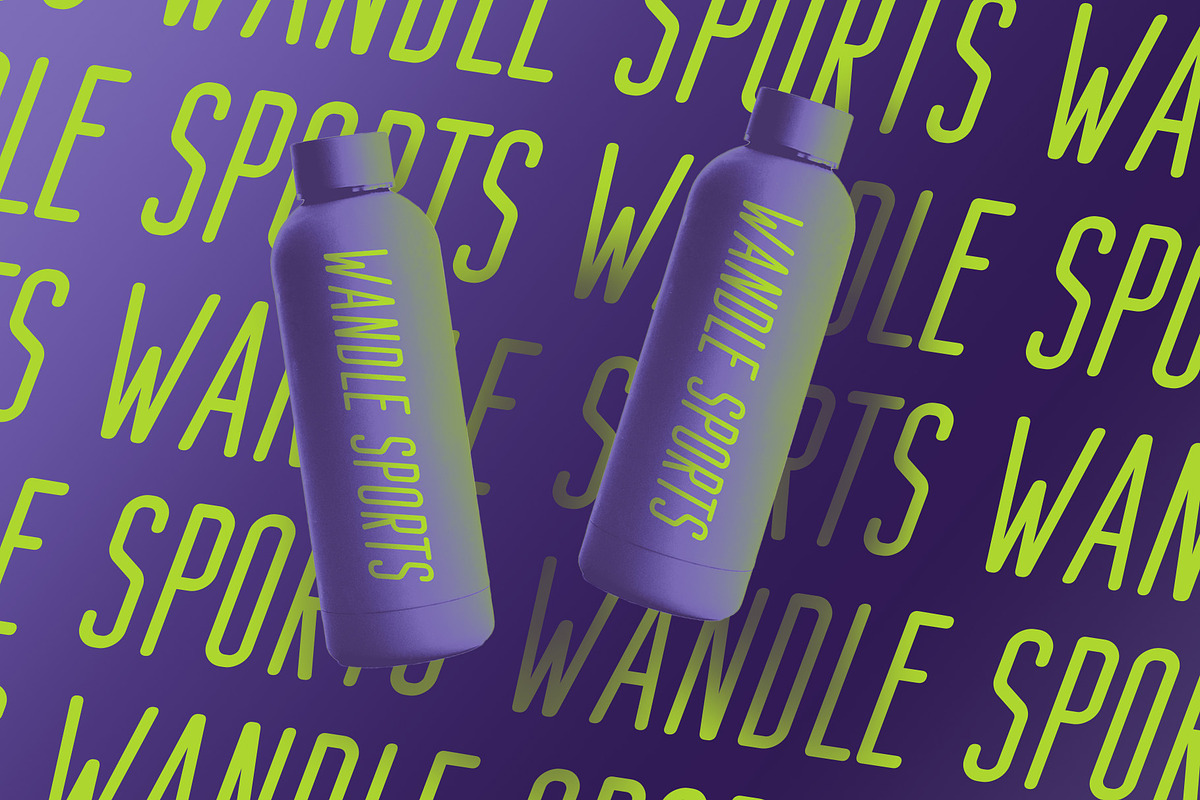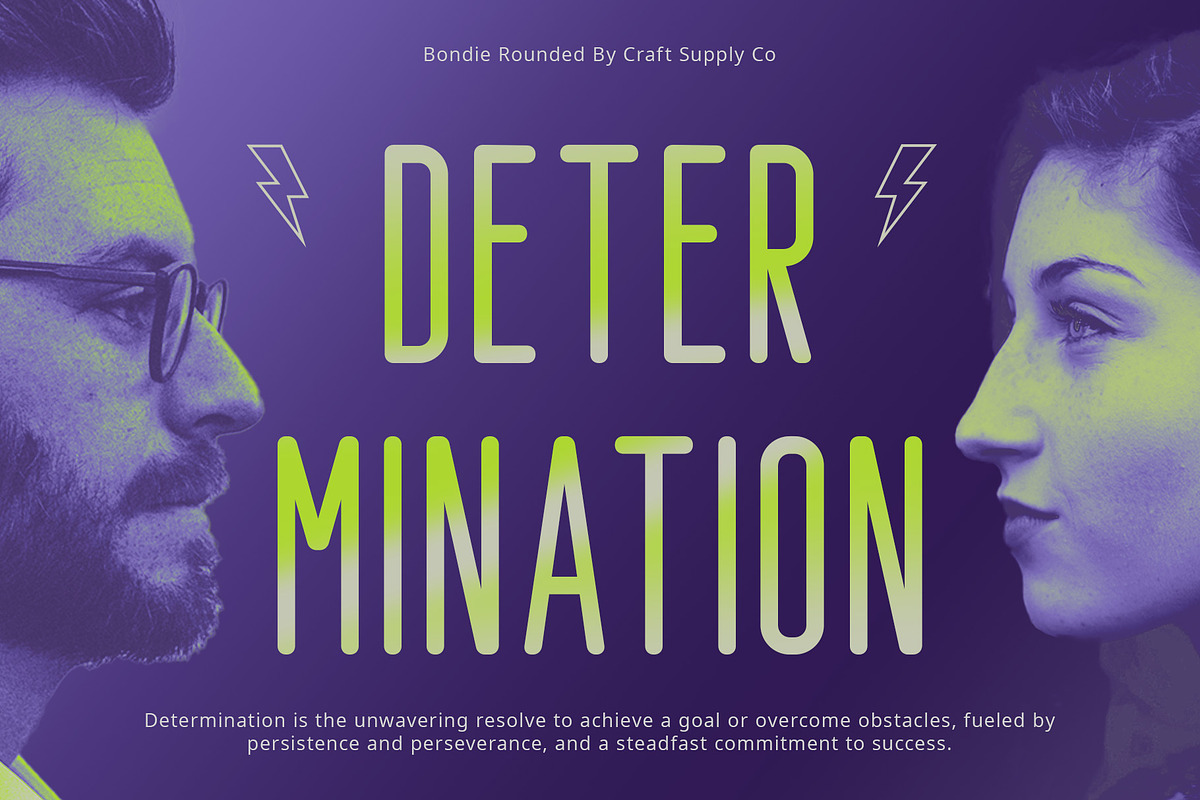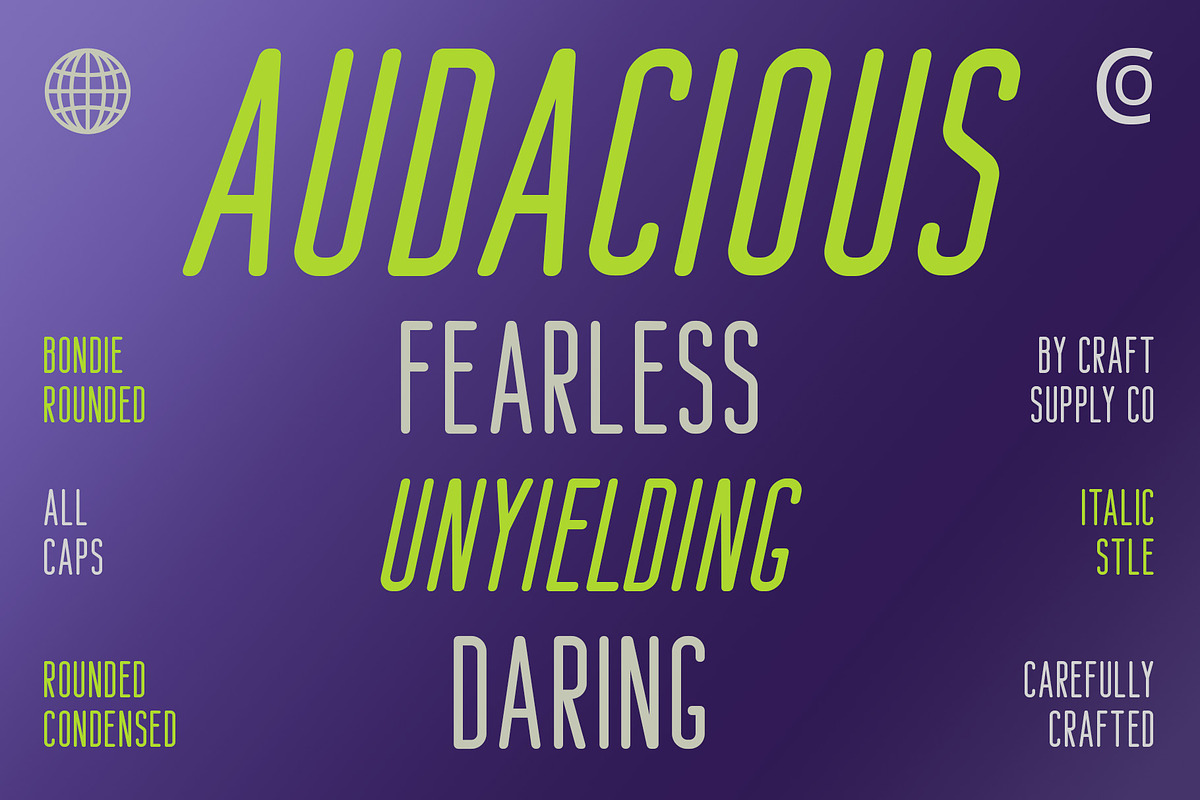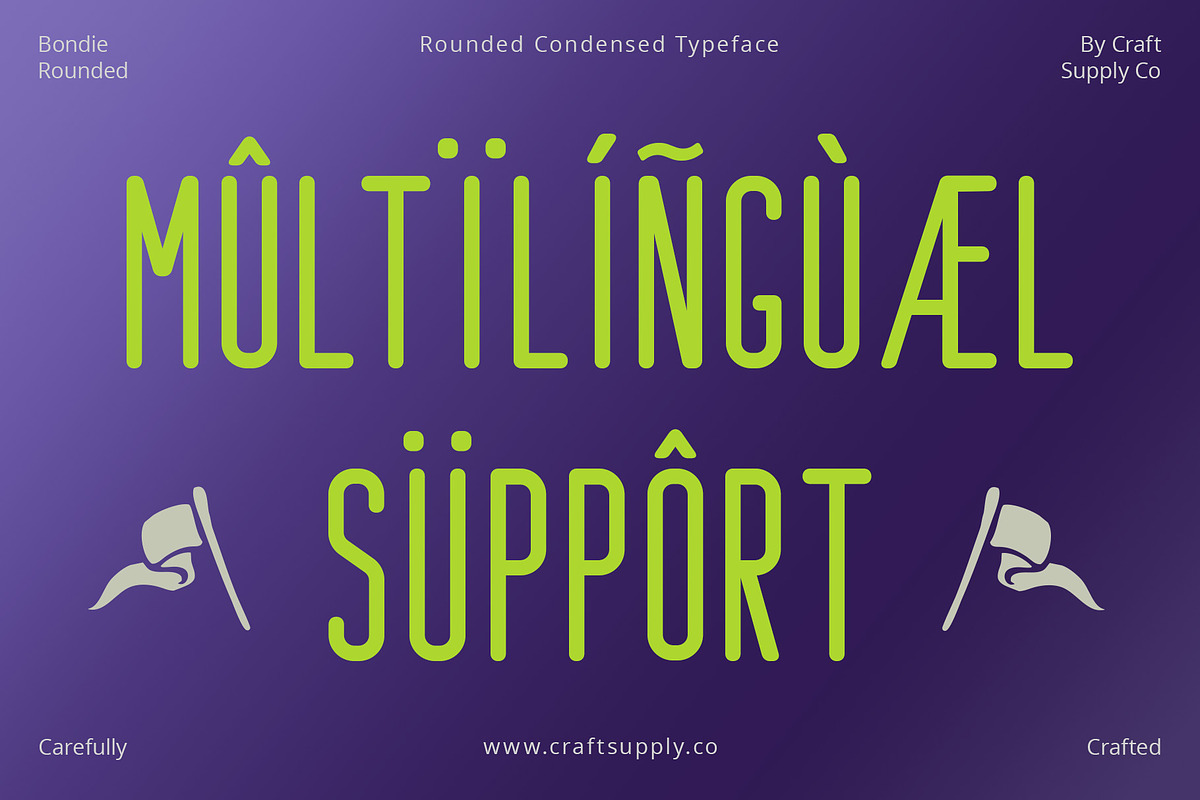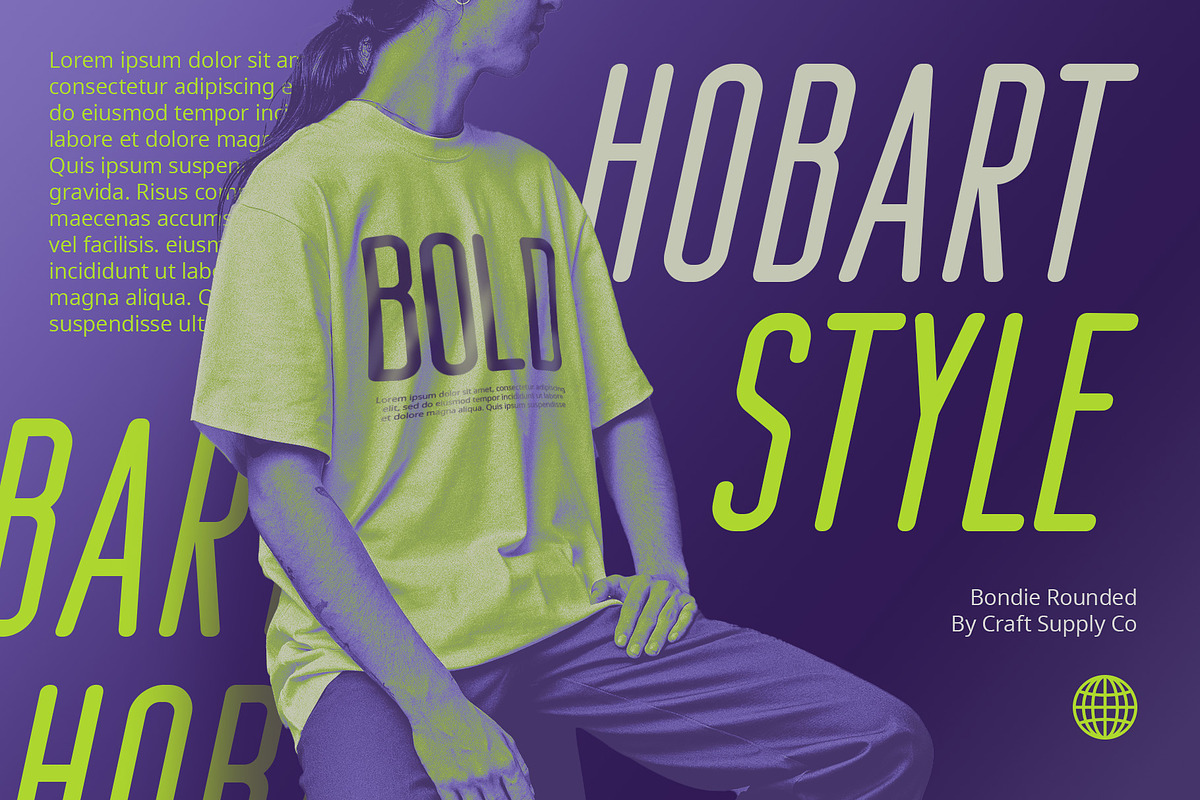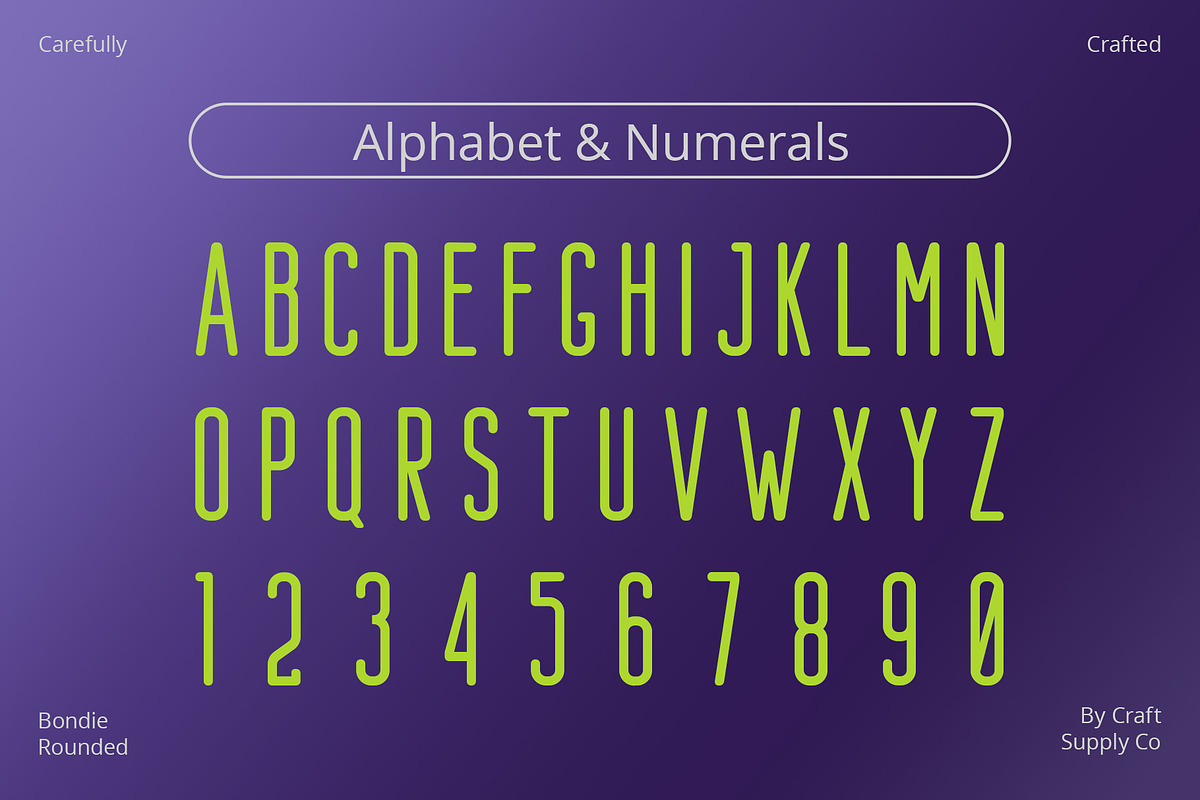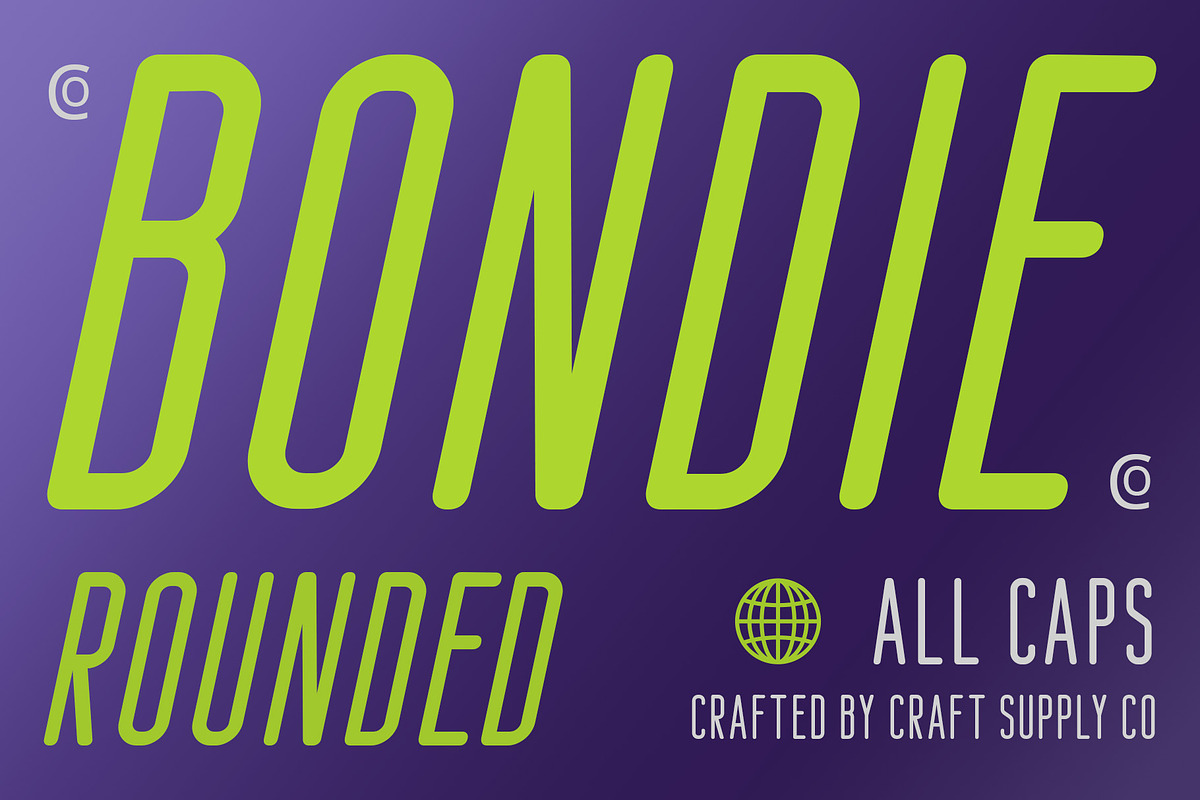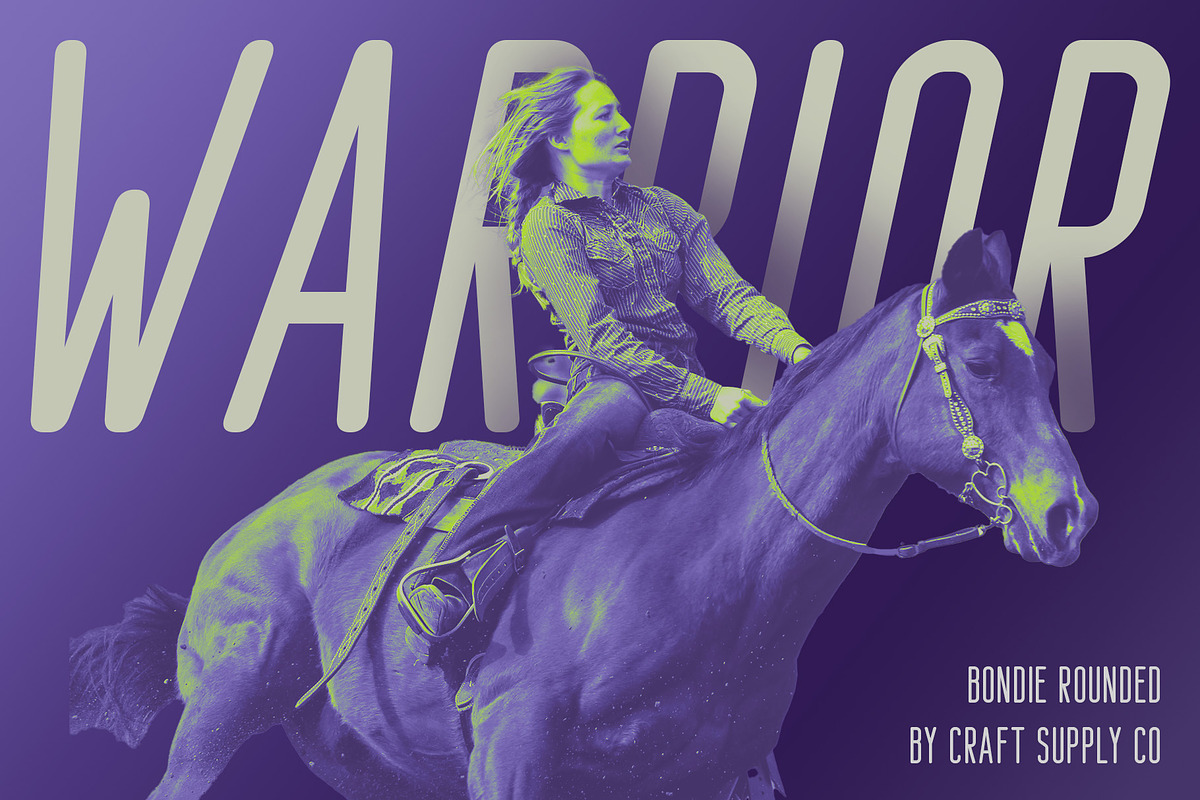
Bondie Rounded
Bondie Rounded: Modern Minimalism in Typeface
Rounded Sans Serif Design Bondie Rounded features a sleek sans serif design with rounded edges, adding a touch of softness to its appearance.
Condensed and Low Contrast The font boasts a condensed style with low contrast between its thick and thin strokes, resulting in a modern and compact aesthetic.
Contemporary Nuance With its rounded edges and condensed form, This font exudes a contemporary vibe that is perfect for a wide range of design projects.
Versatile Application From branding and advertising to web design and packaging, This font offers versatility in its application, making it suitable for various design needs.
Sleek and Modern Typography This font combines the sleekness of a sans serif typeface with rounded edges and condensed proportions, resulting in a modern and versatile font choice for designers. Whether used for headlines, body text, or graphic elements, This font adds a touch of sophistication to any project with its minimalist yet impactful design.